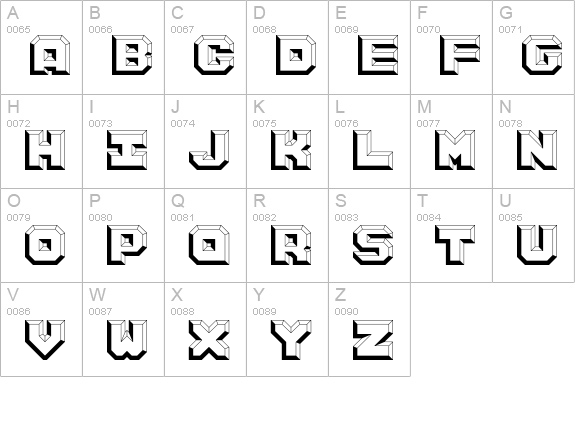
ArgentumWhite Font Details
ArgentumWhite font is a stunning display typeface that exudes elegance and sophistication. With its clean lines and sharp angles, this font is perfect for adding a touch of modernity to any design project. The sleek and minimalistic design of ArgentumWhite makes it versatile and suitable for a wide range of applications, from branding to editorial design. What sets ArgentumWhite apart is not only its striking aesthetics but also its accessibility - it is available for free download at FontsMarket.com. This means that you can easily incorporate this beautiful font into your projects without any cost, making it a valuable addition to your font collection. Embrace the timeless appeal of ArgentumWhite and elevate your designs with its effortless charm and sophistication.